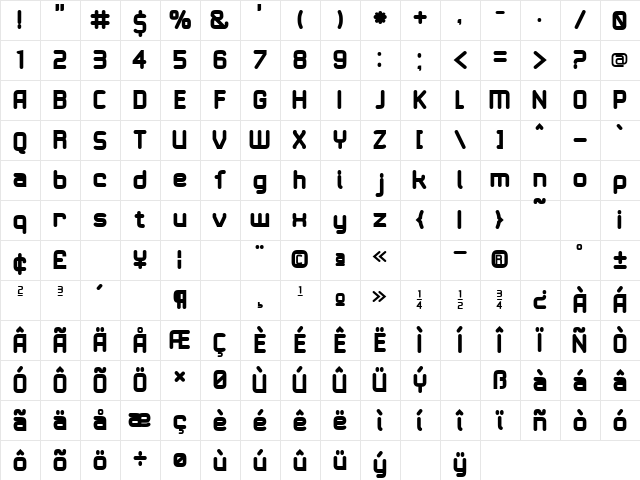
21st RoundBlack Font Preview
21st RoundBlack
21st RoundBlack Font Details
Design Context for 21st Typeface
21st uses gentle rounded endings to create a warm, inviting typographic personality — less corporate than geometric sans, more refined than playful display fonts.
Well-suited to UI design, mobile interfaces, and any brand that wants approachability without sacrificing clarity.
Font Pairing: Pairs well with a rounded or humanist sans for body copy, maintaining the friendly tone without relying on 21st to carry extended reading.
Pro Tip: Use 21st for UI elements, app interfaces, and anywhere a friendly, approachable tone needs to be maintained without sacrificing clarity.